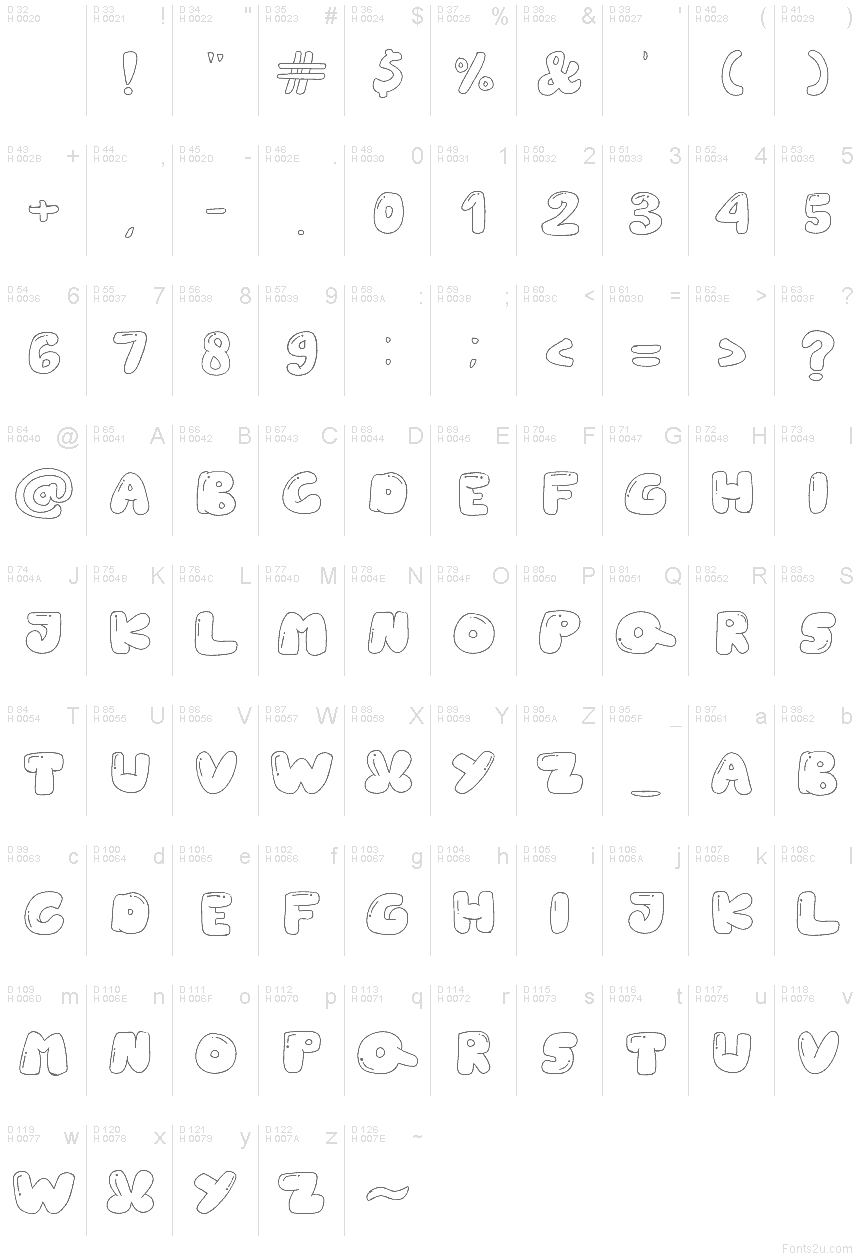
Playful Swollen
Playful Swollen font by Origin Type is a free bold cartoon display font. Its letters look buoyant and air-filled, with puffy outlines that wobble ever so slightly, like bubble gum mid-inflate. The rhythm is chunky yet open, so words feel friendly and exuberant without turning messy—a rare balance that reads fast while still feeling hand-drawn and squishy.
Using Playful Swollen, headlines bounce off the page for kids’ branding, candy or snack packaging, toy logos, party invitations, game splash screens, and YouTube thumbnails. The roomy counters keep color and gradients looking crisp, and the soft edges tame harsh palettes. For an easy combo, pair this free font with a simple sans-serif for body copy and set Playful Swollen large with tight tracking to lock in that bubbly punch.